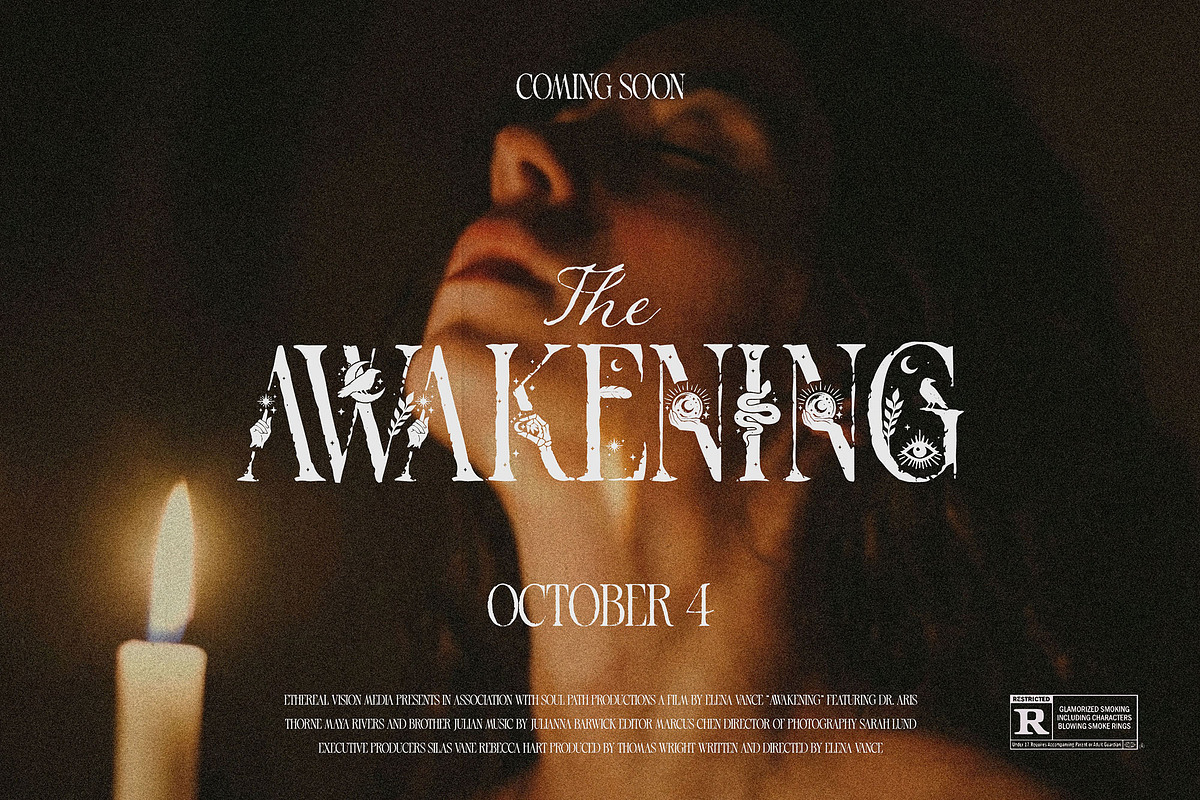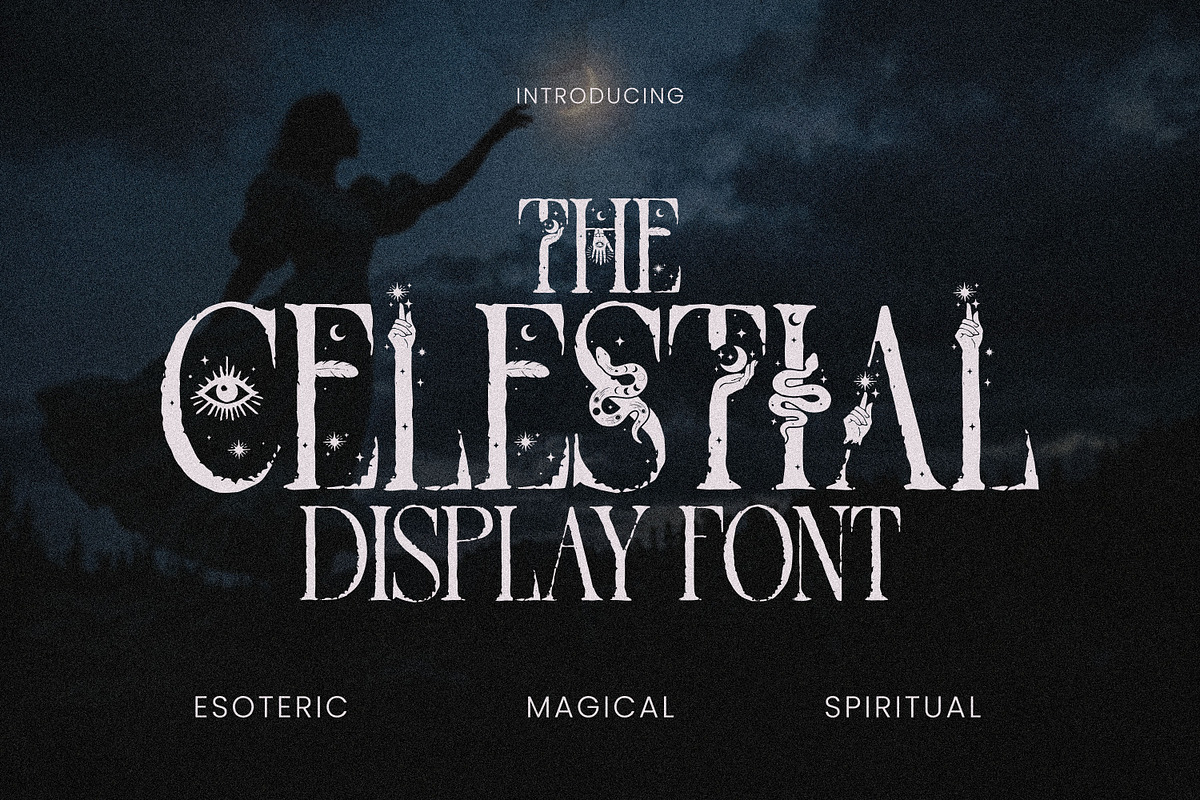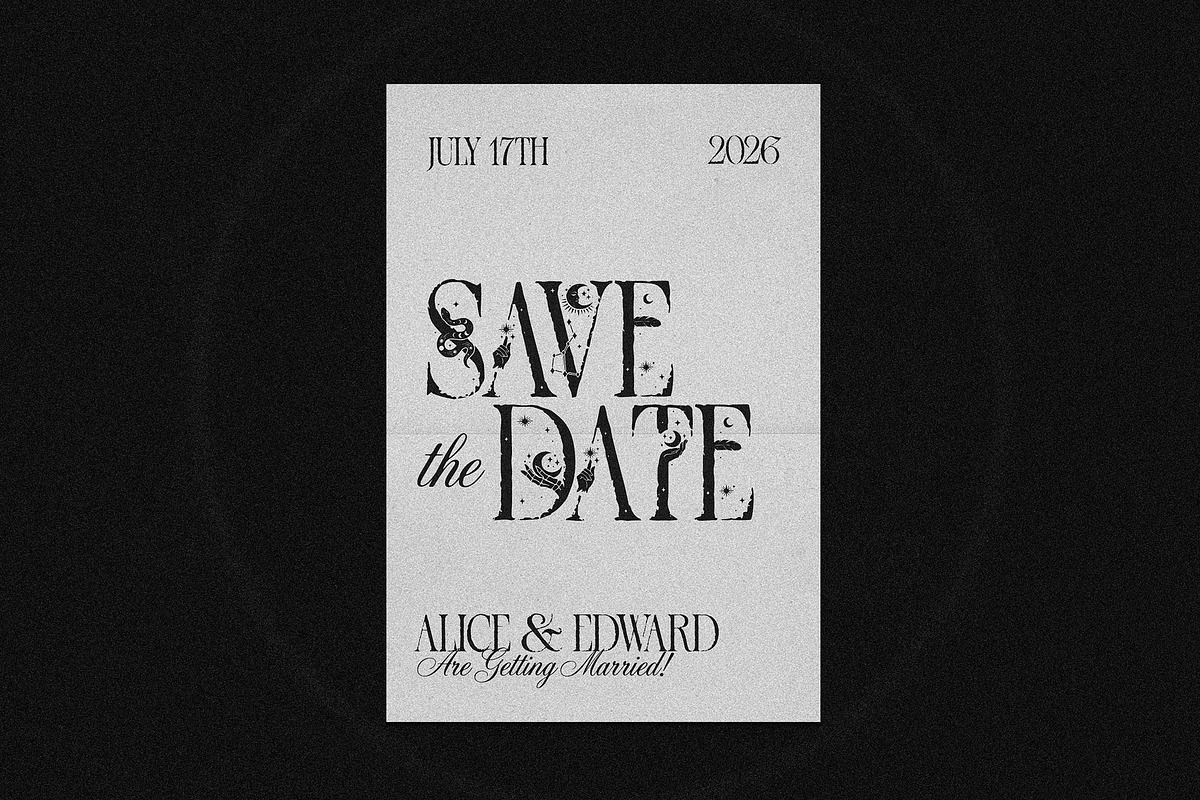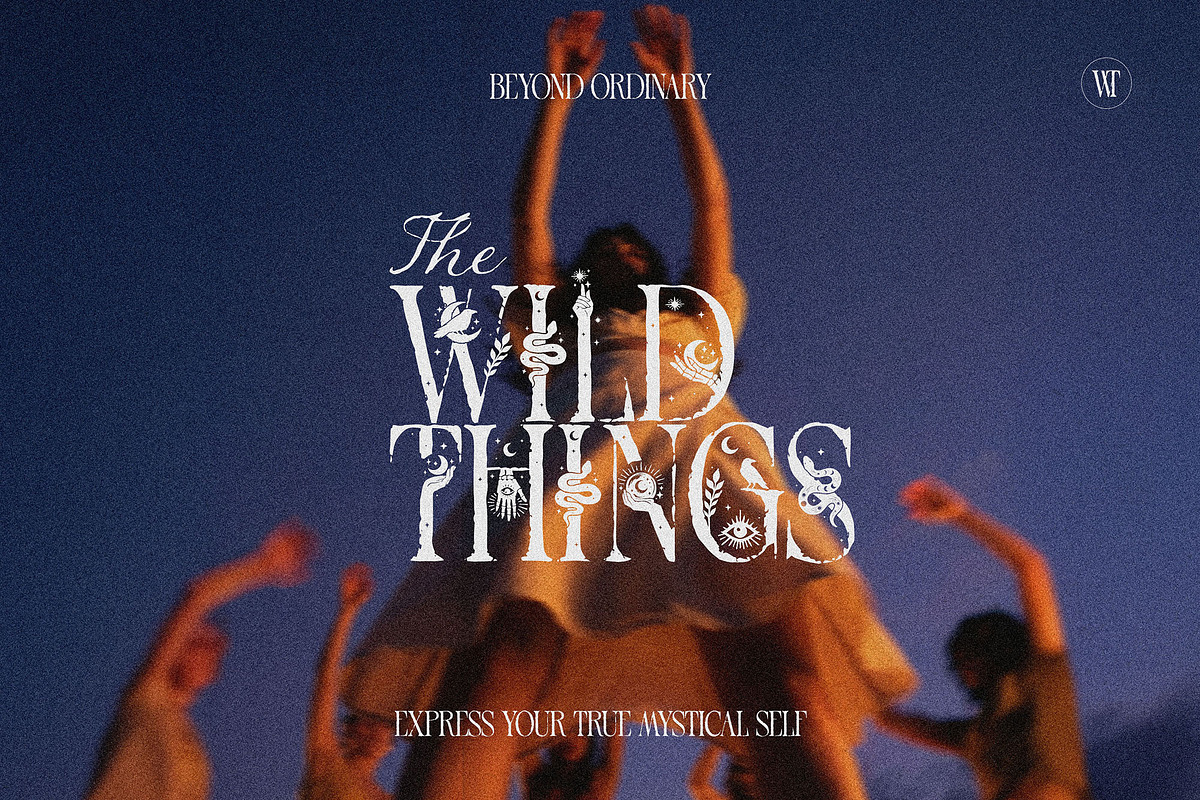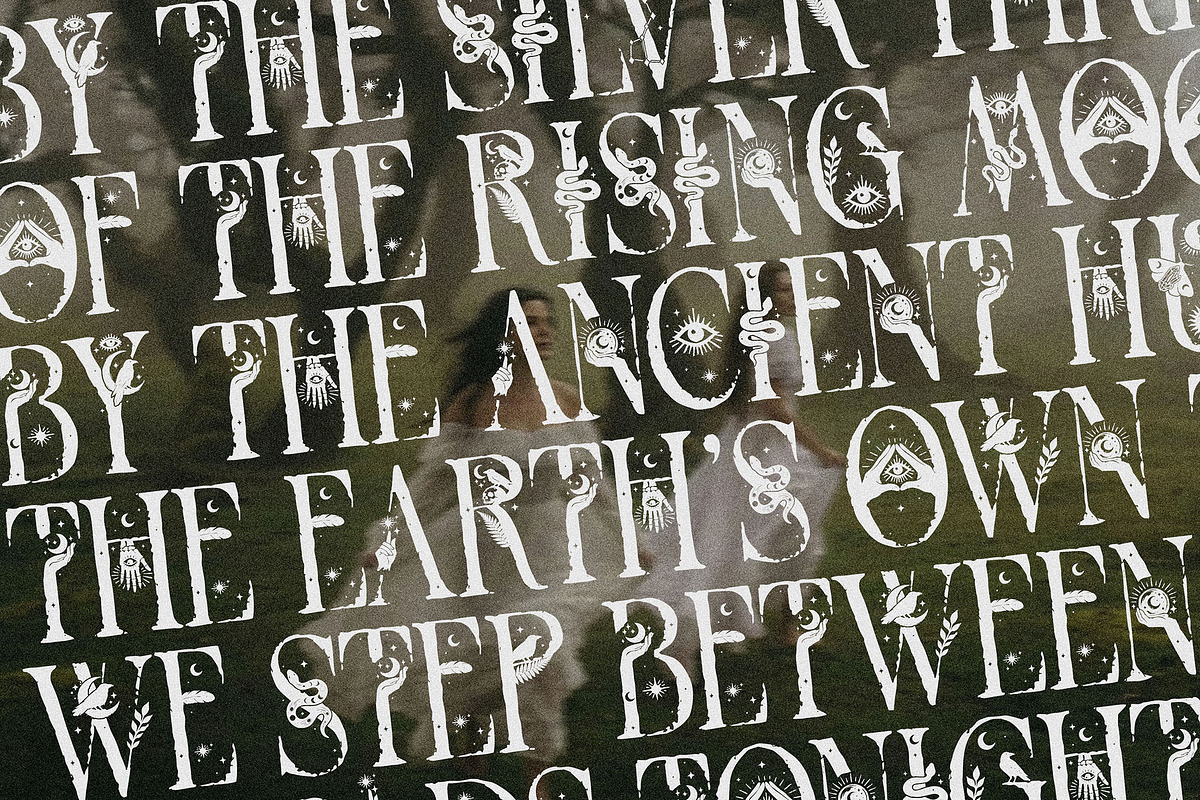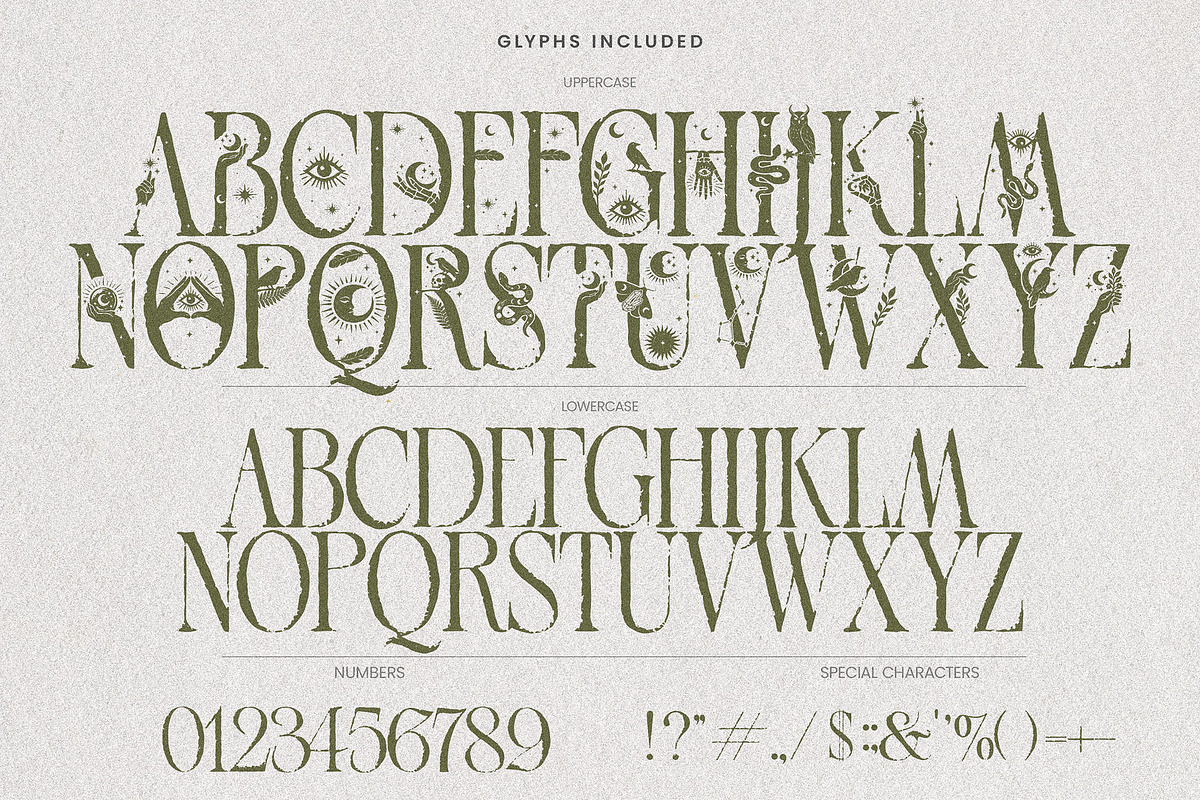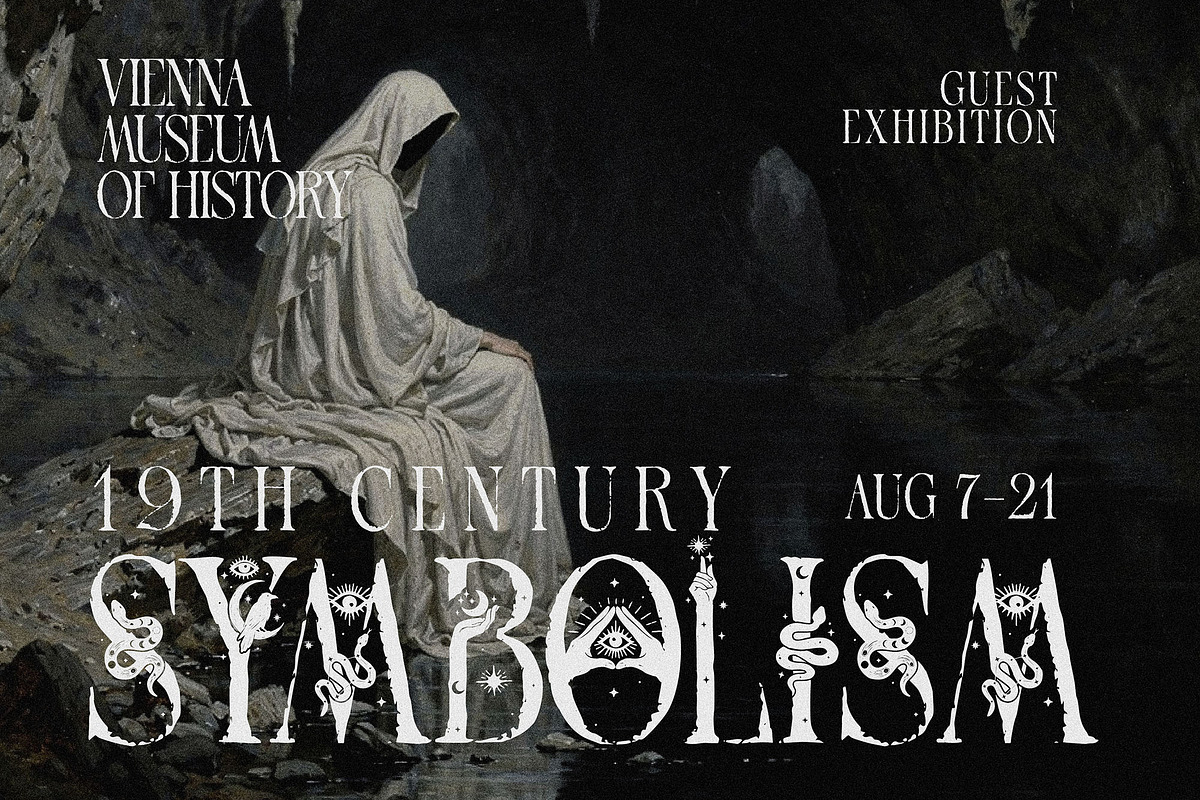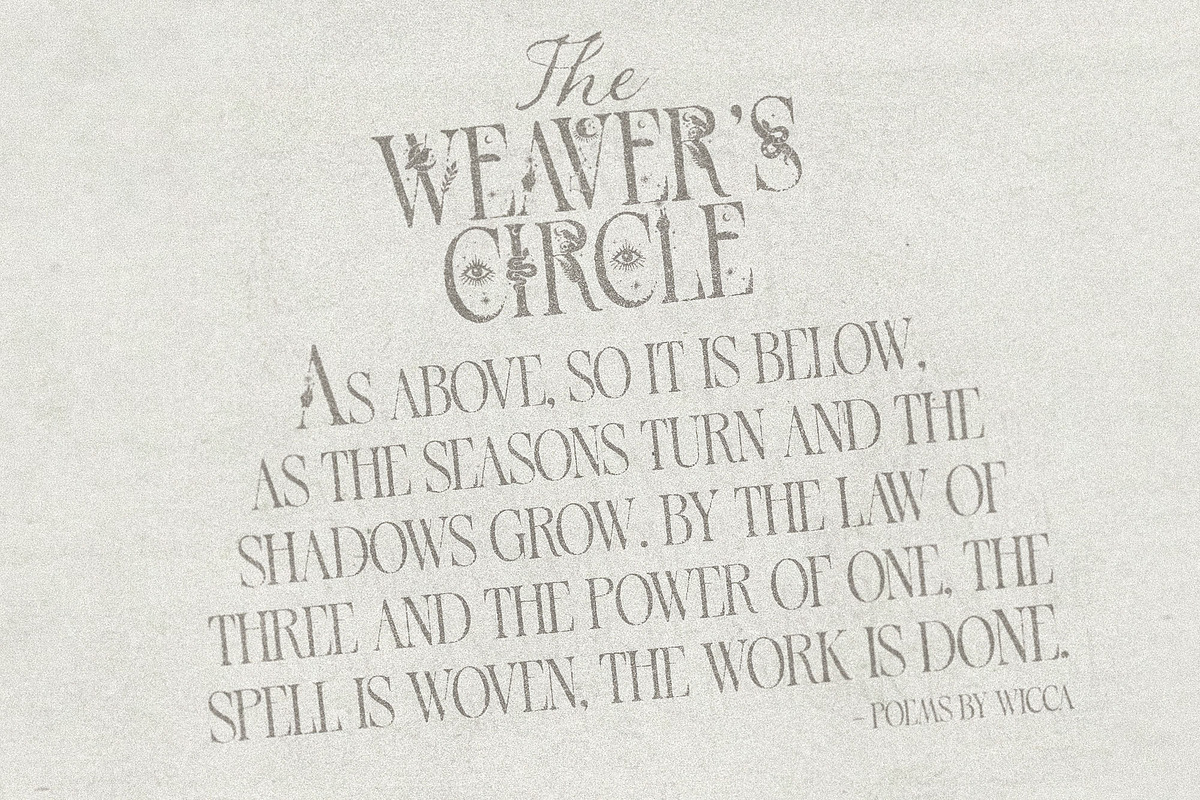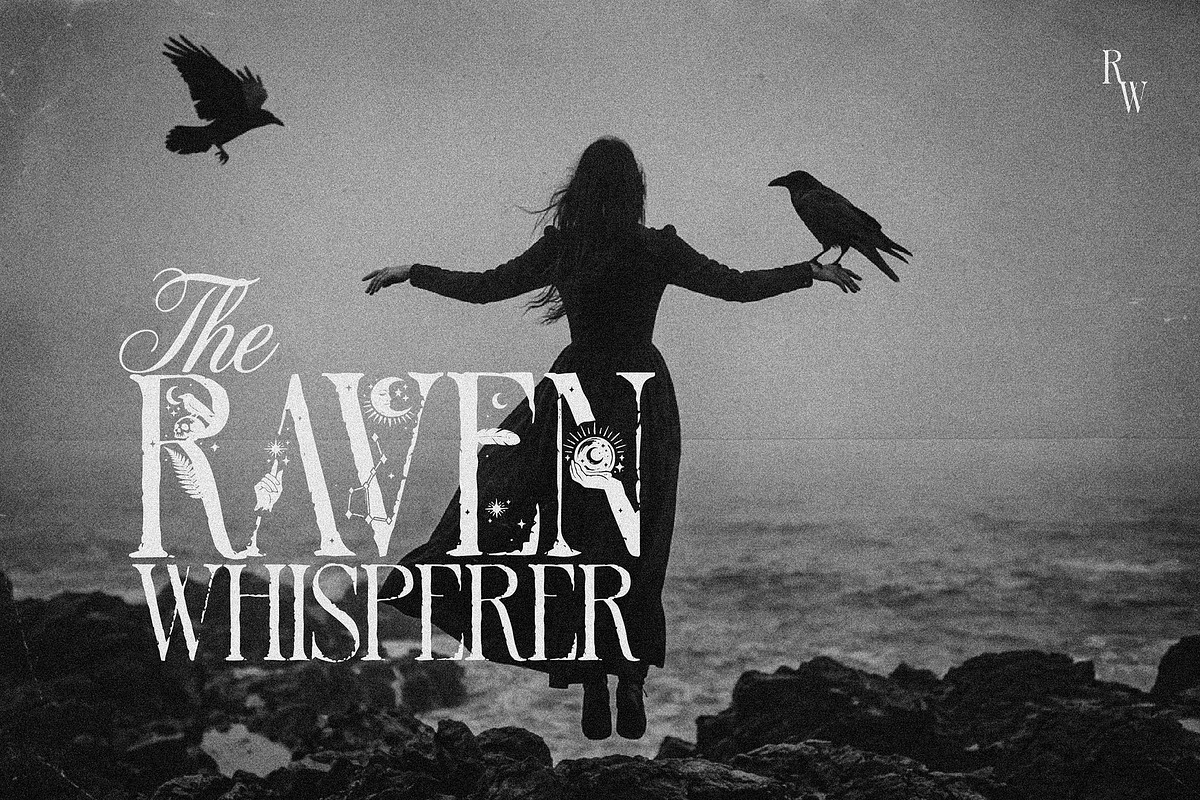
Celestial - Mystic Tarot Font
Font for a world of magic, mystery, and ancient wisdom. The Celestial is a handcrafted display font designed for those who weave magic into their work. Infused with esoteric symbolism—including celestial eyes, moon phases, mystical serpents, and guiding hands—this typeface gives your designs a spiritual and mysterious aura.
Whether you are designing for a modern mystic, an astrology enthusiast, or a dark academia aesthetic, The Celestial provides the intricate detail and vintage character needed to make your projects stand out.
- Tarot & Oracle Deck Design
- Zodiac & Astrology Charts
- Witchy (Wicca) Stationery
- Apothecary & Herbalism Labels
- Tattoo Flash Art
- Manifestation posters